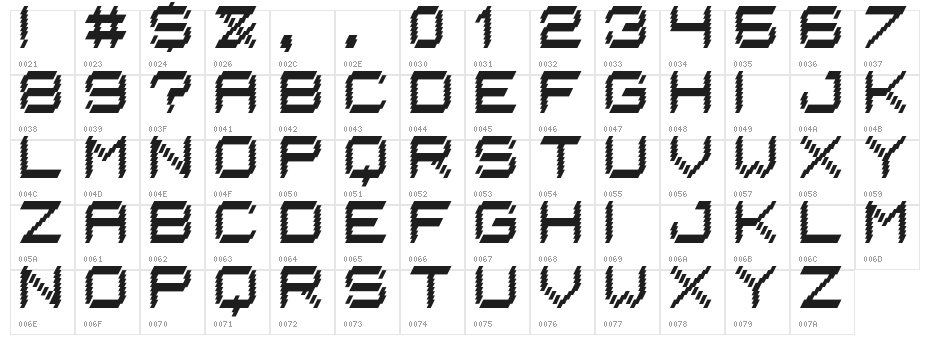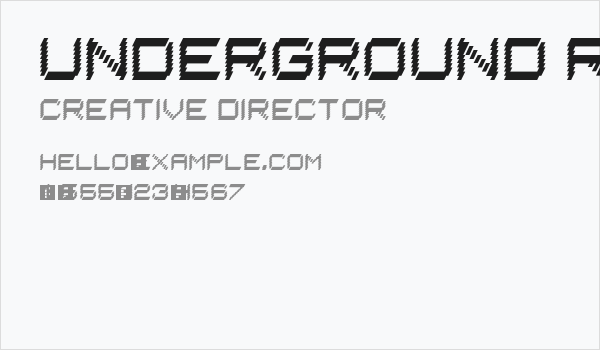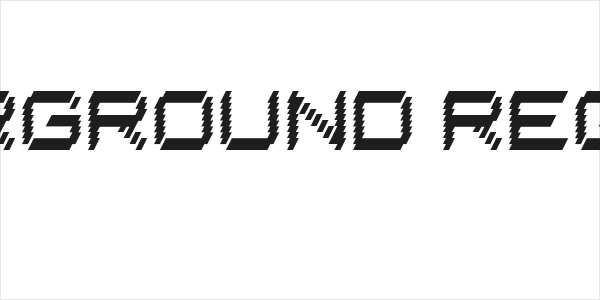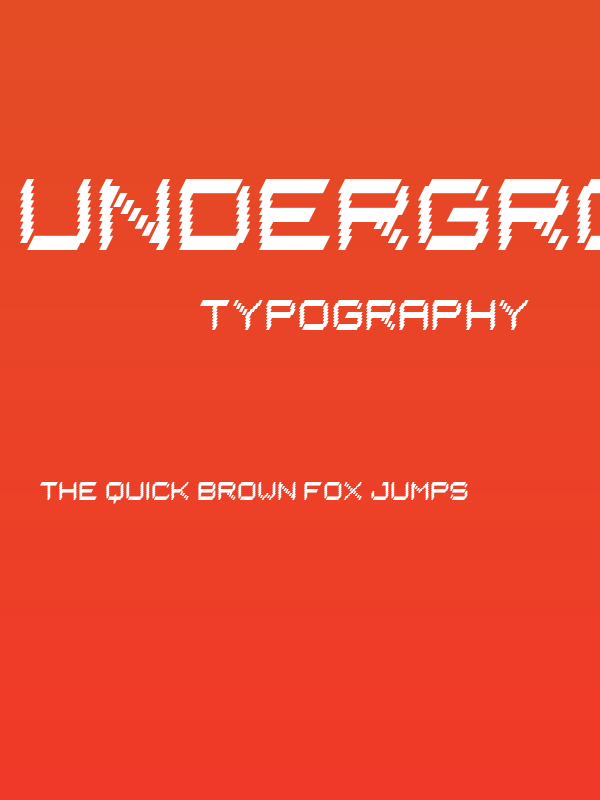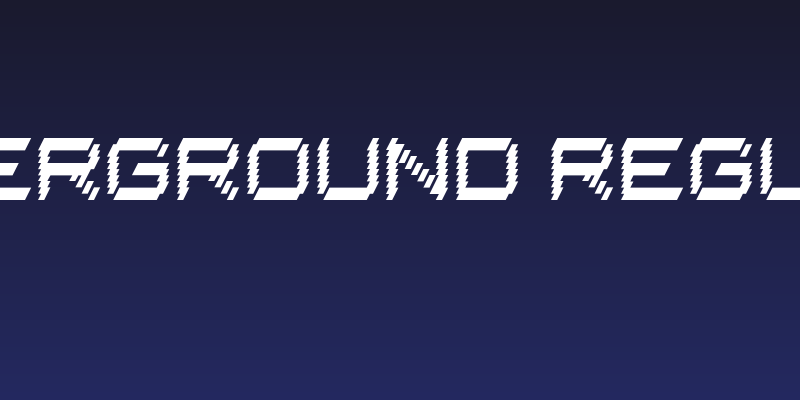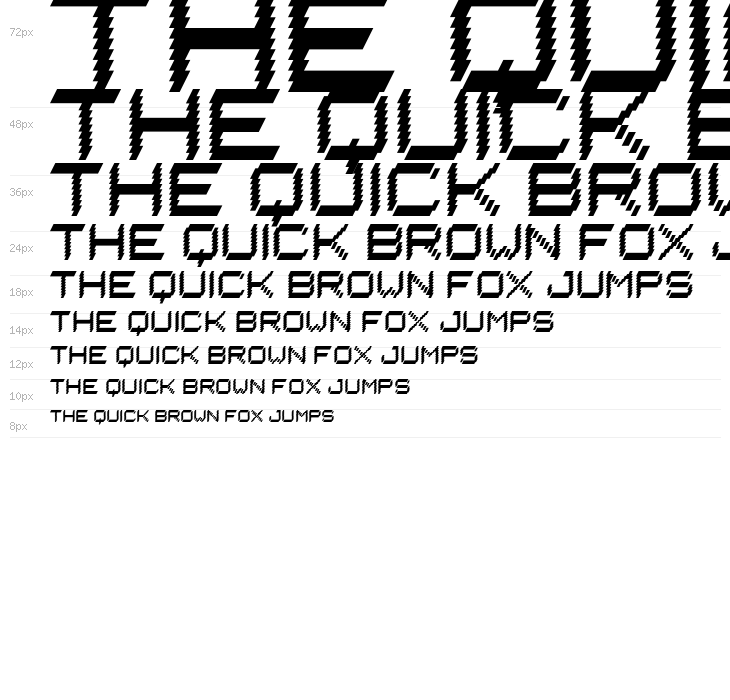
Underground Regular Font
Underground Regular Description
This font features a bold, modern design with a distinct digital aesthetic. The characters are constructed with a unique pixelated, jagged edge style that gives it a futuristic and edgy appearance. The uppercase and lowercase letters maintain a consistent height and width, creating a uniform look across the board. Numbers and special characters follow the same design principles, ensuring cohesion throughout. The font's sharp angles and geometric shapes make it stand out, ideal for projects that require a tech-savvy or avant-garde feel. Its boldness and distinct style make it suitable for attention-grabbing headlines or logos.
| Proposed Projects | Ideal for tech-related branding, video game graphics, futuristic posters, and digital art projects. |